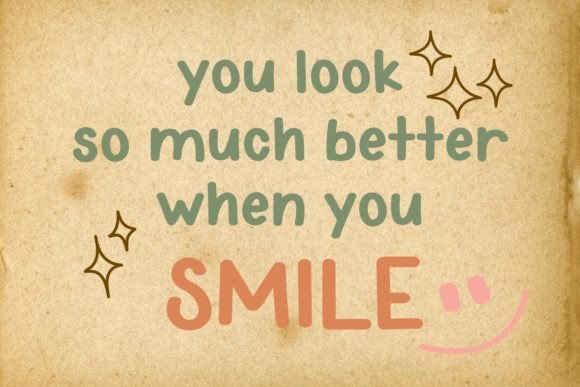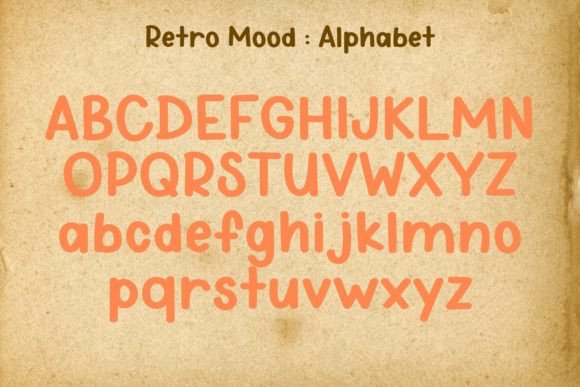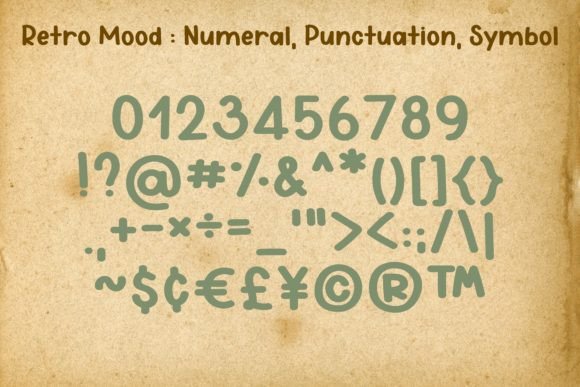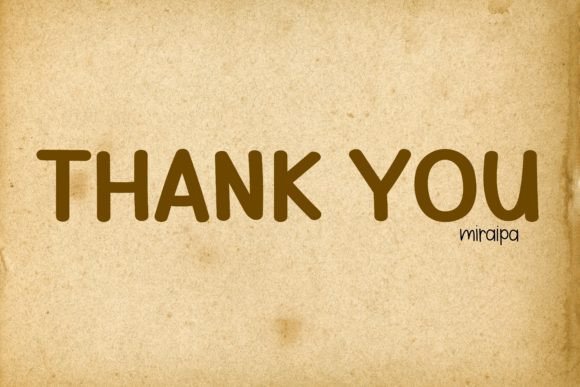
Retro Mood Font
About Retro Mood Font
“Retro Mood” is a fun and playful handwritten font that exudes a sense of nostalgia and whimsy. This font is a great choice for a variety of design projects where you want to convey a playful and lighthearted vibe. Its quirky and retro-inspired style can add a touch of charm and creativity to your creative endeavors.
The font’s fun and playful design is characterized by its unique and expressive characters. It’s well-suited for various design applications, including posters, social media graphics, branding, and more. “Retro Mood” can infuse your designs with a sense of fun and nostalgia, making them engaging and memorable.
In the world of design, fonts are instrumental in setting the mood and visual identity of a project. “Retro Mood” excels in these aspects by offering a handwritten style that is both playful and visually captivating. Its aesthetics bring a sense of whimsy and creativity to your designs, making them stand out and leave a lasting impression.
In summary, “Retro Mood” is more than just a font; it’s a fun and playful design tool that can enhance your creative projects with its quirky and retro-inspired style. Whether you’re a professional designer or a DIY enthusiast, “Retro Mood” is the font that can help you craft designs that are approachable and full of character, evoking a sense of nostalgia and joy.